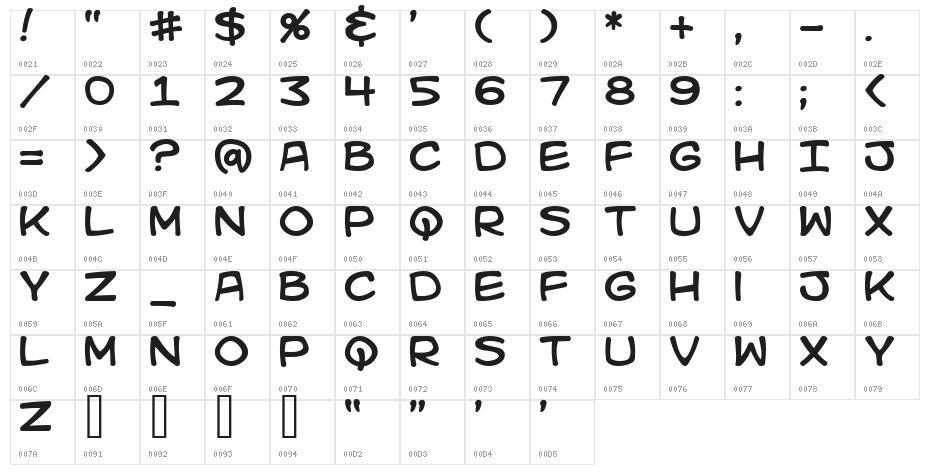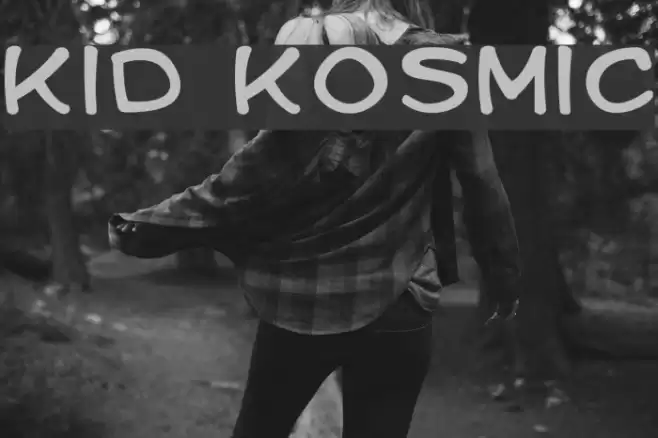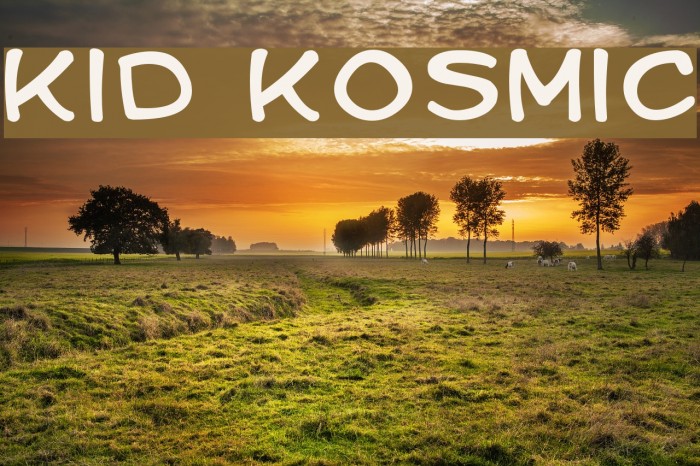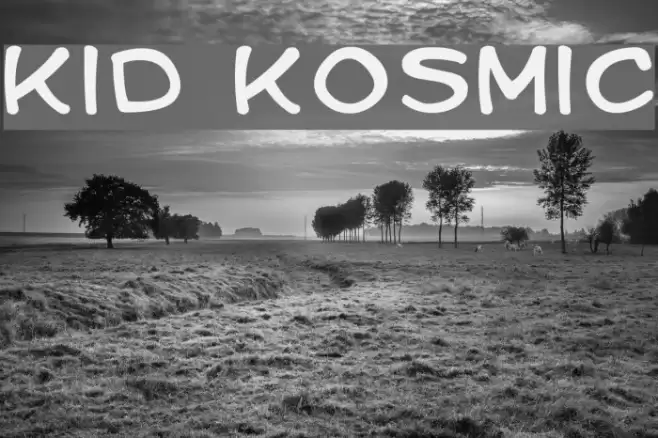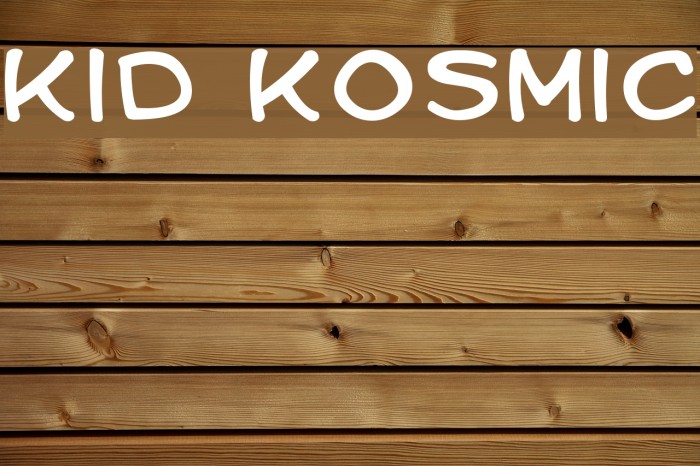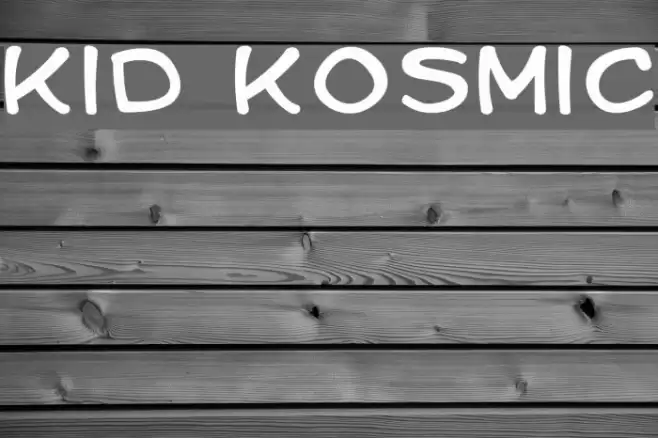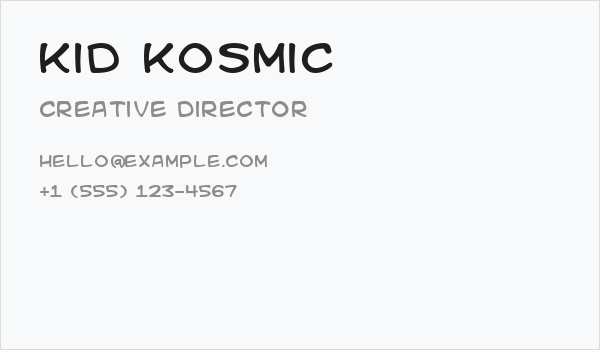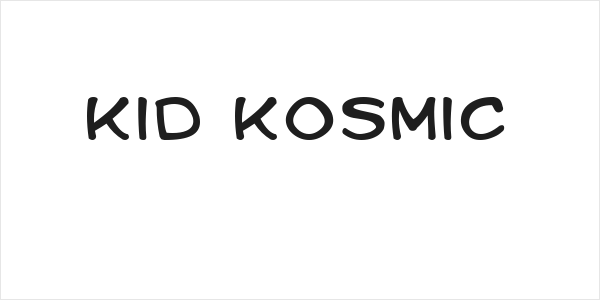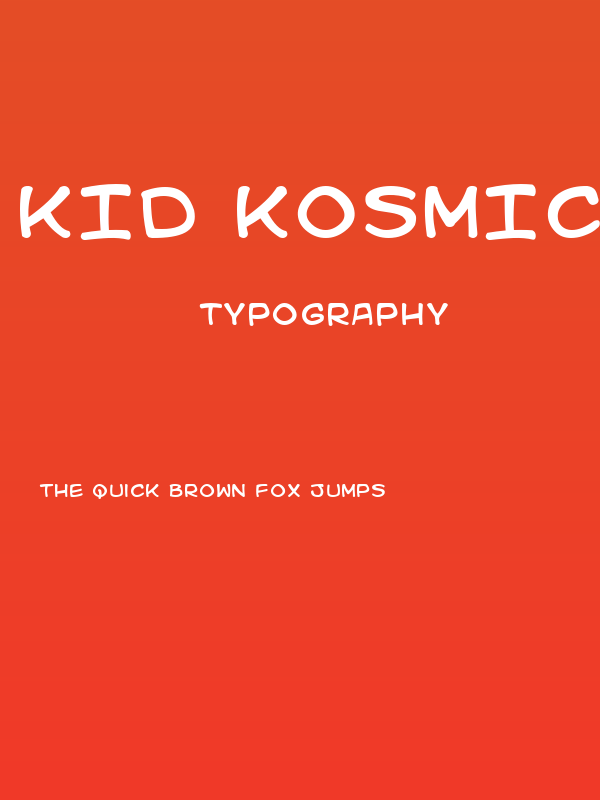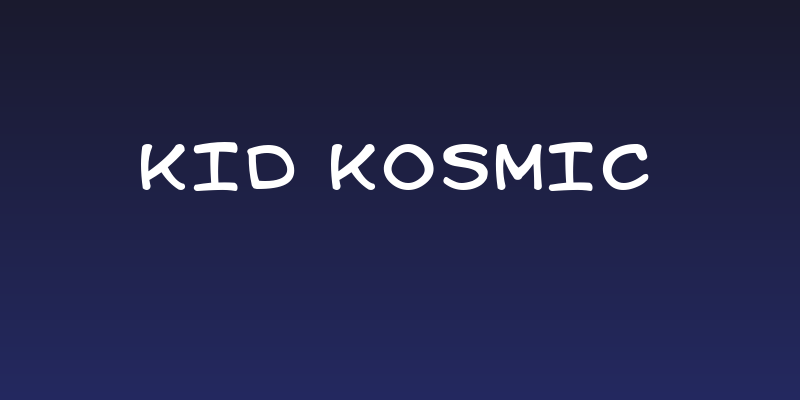
Kid Kosmic Font
Kid Kosmic Description
This playful and whimsical font features rounded, bold characters with a hand-drawn appearance. The letters are slightly irregular, giving them a friendly and approachable feel. The font maintains a consistent stroke width throughout, contributing to its casual and informal style. It includes both uppercase and lowercase letters, numerals, and a variety of special characters, making it versatile for different uses. The overall design is reminiscent of comic book lettering, with a touch of nostalgia and fun.
| Overall Style | Playful, Whimsical, Comic |
| Proposed Projects | Ideal for children's books, comic strips, playful branding, and informal invitations. |